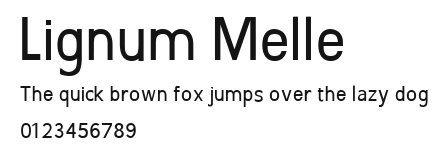
• Font Name: Lignum Melle
• Designer: Igor Berck Rodrigues
About Lignum Melle.ttf
Lignum Melle.ttf is a modern, elegant sans-serif font designed for ultimate readability and visual harmony. Perfect for branding, headlines, web design, and print materials.